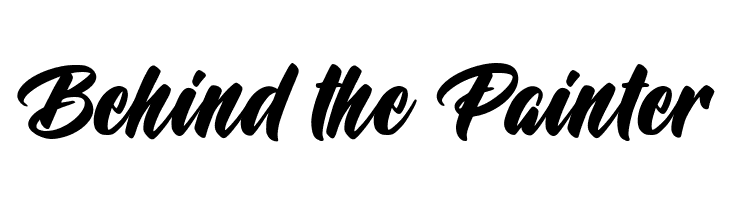
A whimsical script font with elegant, flowing letterforms and playful flourishes.
A bold, expressive handwritten script font with smooth curves and a dynamic style.
A playful, bold script font with a handwritten, whimsical style.
A bold, playful font with rounded edges and a modern, casual style.
A playful, handwritten font with rounded, bold characters.
A playful, handwritten font with a casual and friendly style.
A playful, handwritten font with smooth, rounded edges and a casual style.
A playful handwritten font with a casual and friendly vibe.
An elegant script font with flowing, ornate characters and high contrast.